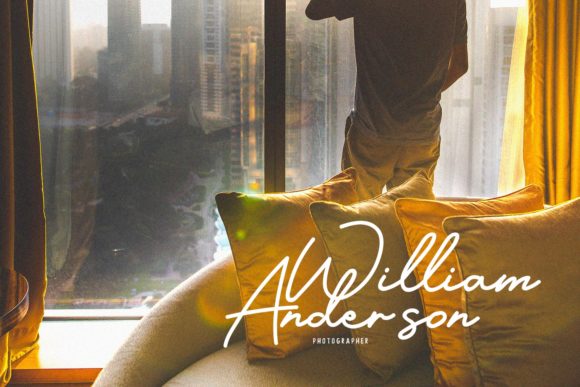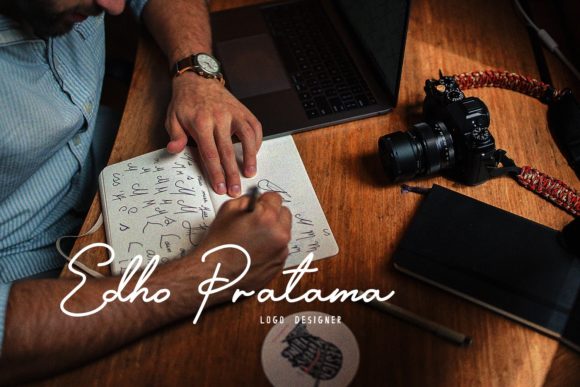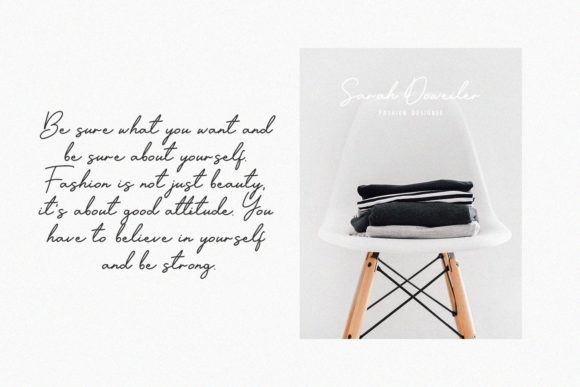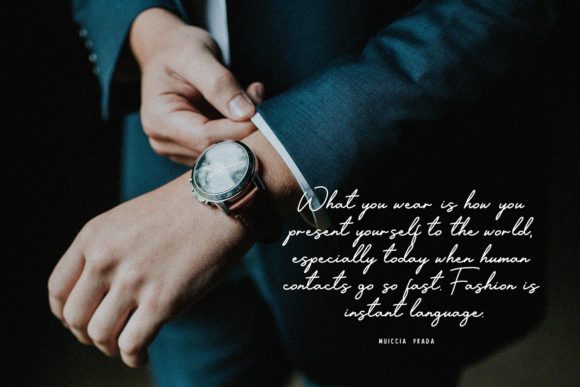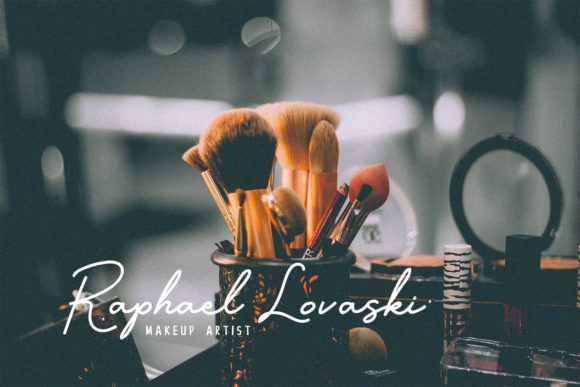
Introducing Designer Signature: A Sweet and Cool Handwritten Font
Are you a designer or crafter looking for a unique and stylish font to elevate your creative projects? Look no further than Designer Signature, a sweet and cool handwritten font with a straight baseline that’s sure to inspire. With its contemporary charm and versatility, this font is perfect for a wide range of applications, from branding and advertising to crafting and DIY projects.
The Characteristics of Designer Signature
Designer Signature is a carefully crafted font that boasts a number of distinctive characteristics. Its straight baseline gives it a clean and modern look, while its handwritten style adds a touch of warmth and personality. The font features a mix of thick and thin lines, which creates a sense of movement and fluidity. This makes it perfect for use in a variety of contexts, from headings and titles to body text and captions.
What Makes Designer Signature So Special?
So, what sets Designer Signature apart from other fonts on the market? Here are just a few reasons why this font is a standout:
- Unique and original design: Designer Signature is a one-of-a-kind font that’s been carefully crafted to provide a distinctive look and feel.
- Highly versatile: This font can be used in a wide range of applications, from digital projects to print materials.
- Easy to read: Despite its creative and artistic style, Designer Signature is surprisingly easy to read, making it perfect for use in body text and other applications where legibility is key.
- Perfect for branding and advertising: With its modern and stylish look, Designer Signature is an excellent choice for use in branding and advertising projects.
How to Use Designer Signature in Your Projects
Designer Signature is a versatile font that can be used in a wide range of projects. Here are just a few ideas to get you started:
- Branding and advertising: Use Designer Signature to create eye-catching logos, advertisements, and marketing materials that will help your brand stand out.
- Crafting and DIY projects: Add a personal touch to your crafting and DIY projects with Designer Signature, perfect for use in titles, headings, and other decorative elements.
- Digital projects: Use Designer Signature in your digital projects, such as website designs, social media graphics, and email newsletters.
- Print materials: Designer Signature is also perfect for use in print materials, such as brochures, flyers, and business cards.
Tips for Getting the Most Out of Designer Signature
To get the most out of Designer Signature, here are a few tips to keep in mind:
- Experiment with different sizes and colors: Don’t be afraid to try out different sizes and colors with Designer Signature to create a unique look that suits your project.
- Pair it with other fonts: Designer Signature can be paired with other fonts to create a unique and interesting look. Try pairing it with a sans-serif font for a modern and stylish contrast.
- Use it consistently: To create a cohesive look, use Designer Signature consistently throughout your project.
In conclusion, Designer Signature is a sweet and cool handwritten font with a straight baseline that’s perfect for designers and crafters looking to add a touch of contemporary charm to their projects. With its unique and original design, versatility, and ease of use, this font is sure to inspire. Whether you’re working on a branding project, crafting and DIY project, or digital project, Designer Signature is an excellent choice. So why wait? Download Designer Signature today and start creating something amazing!